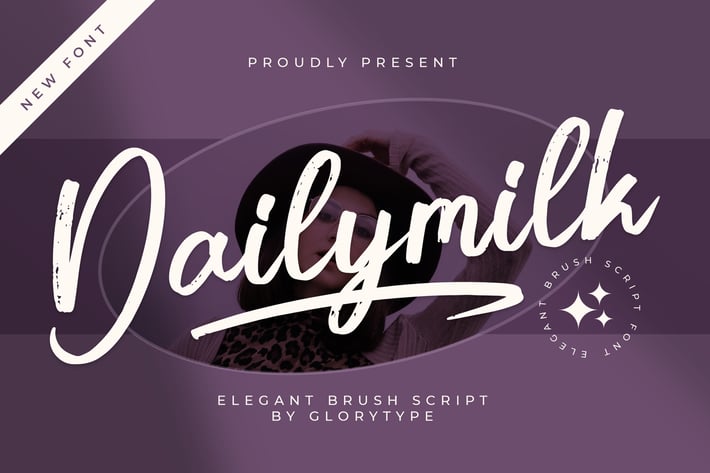
Dailymilk Elegant Brush Script Font
Dailymilk is an elegant brush script font with a natural handwritten feel. Featuring smooth curves and stylish strokes, this font is perfect for branding, logos, wedding invitations, social media, and lifestyle designs. Its artistic and modern touch makes it ideal for creative projects that require a chic and feminine look.
- Handcrafted Brush Style – Gives a natural and expressive feel
- Elegant & Stylish Design – Perfect for branding, fashion, and lifestyle themes
- Smooth & Fluid Strokes – Creates a sophisticated handwritten aesthetic
- Multilingual Support – Includes accented characters for global use
- High-Quality Typography – Optimized for both print and digital applications
- Complete Character Set: Uppercase, lowercase, numerals, punctuation, and alternates